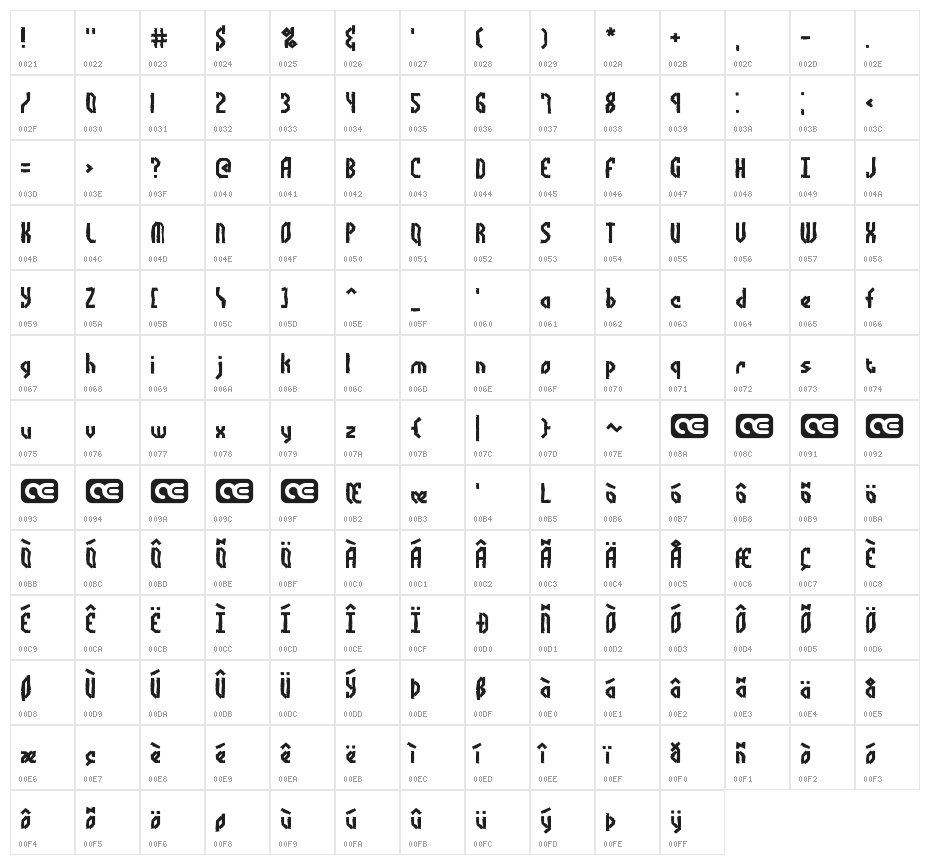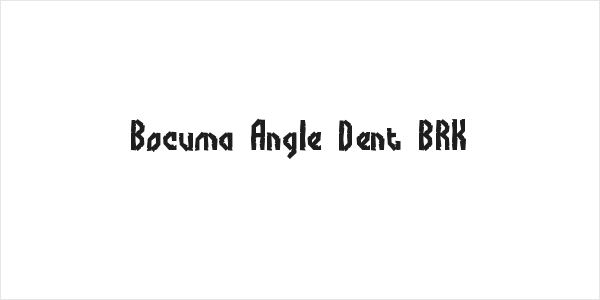
Bocuma Angle Dent BRK Font
Bocuma Angle Dent BRK Description
This font features a bold and angular design, characterized by sharp, jagged edges and a geometric structure. The uppercase and lowercase letters maintain a consistent style, with each character exhibiting a unique, edgy appearance. The numbers and special characters follow the same angular theme, making the font cohesive and visually striking. Its distinct style is reminiscent of a modern, industrial aesthetic, suitable for projects that require a bold statement.
| Overall Style | Modern, Industrial |
| Proposed Projects | Ideal for posters, album covers, video game titles, and branding that requires a modern, edgy look. |